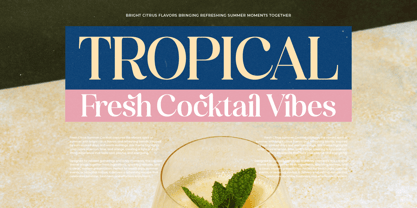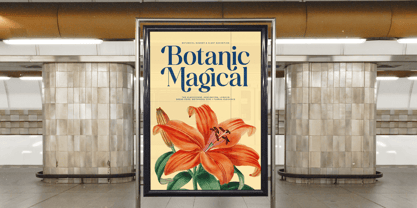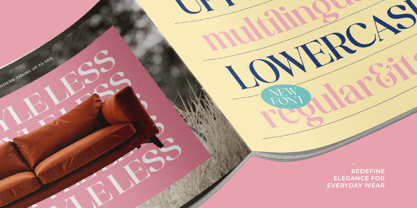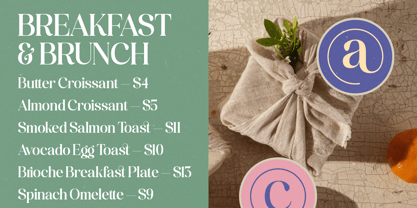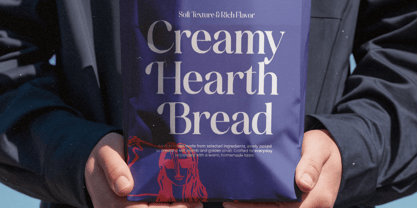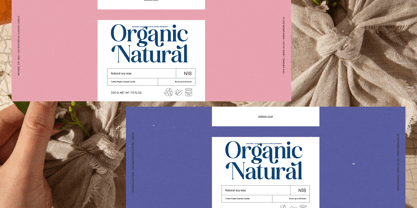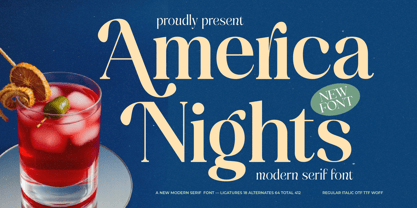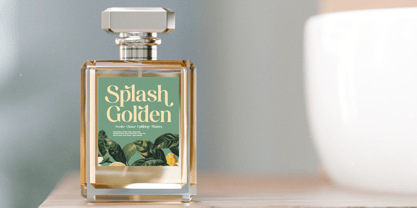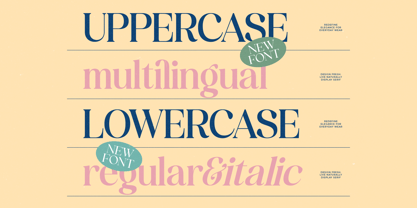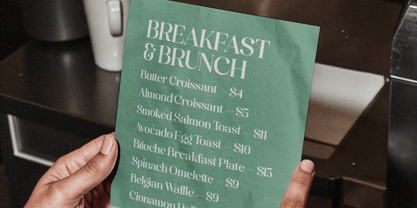
America Nights
by Timelesstype Studio
The America Nights Font Family was designed by Heru Utama Putra and published by Timelesstype Studio. America Nights contains 2 styles and family package options. More about this family
America Nights is a modern serif font with elegant curves, refined contrast, and expressive alternates that blend contemporary sophistication with timeless editorial charm. Designed for standout headlines, luxury branding, packaging, and visual storytelling, this typeface brings a bold, confident presence through its sculpted serifs and graceful letterforms. Featuring 18 ligatures, 64 stylistic alternates, and a total of 412 glyphs, America Nights offers exceptional versatility for both classic and modern layouts across Regular and Italic styles.
America Nights